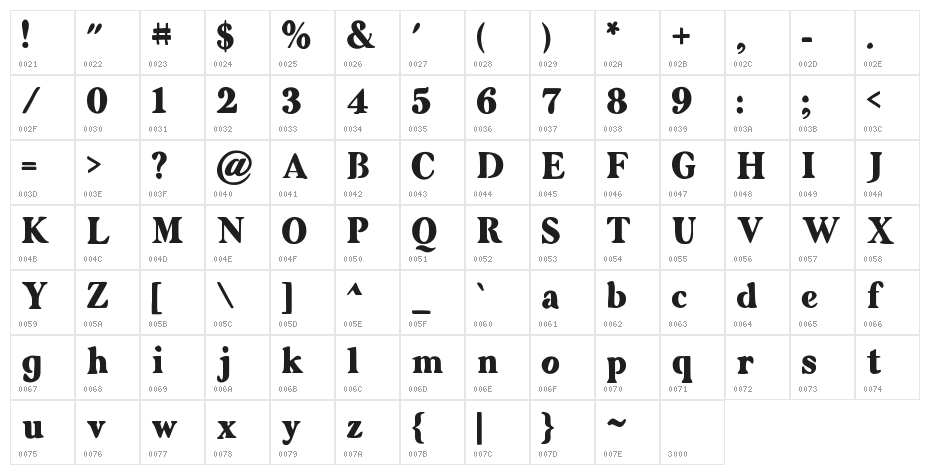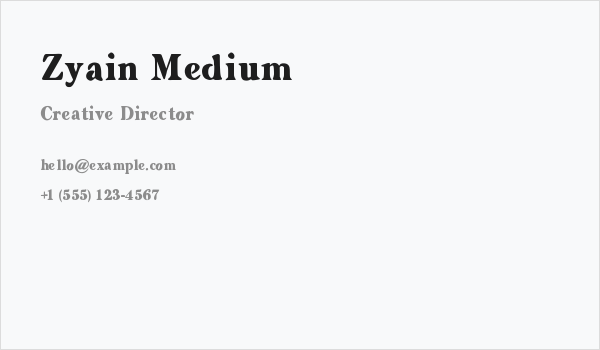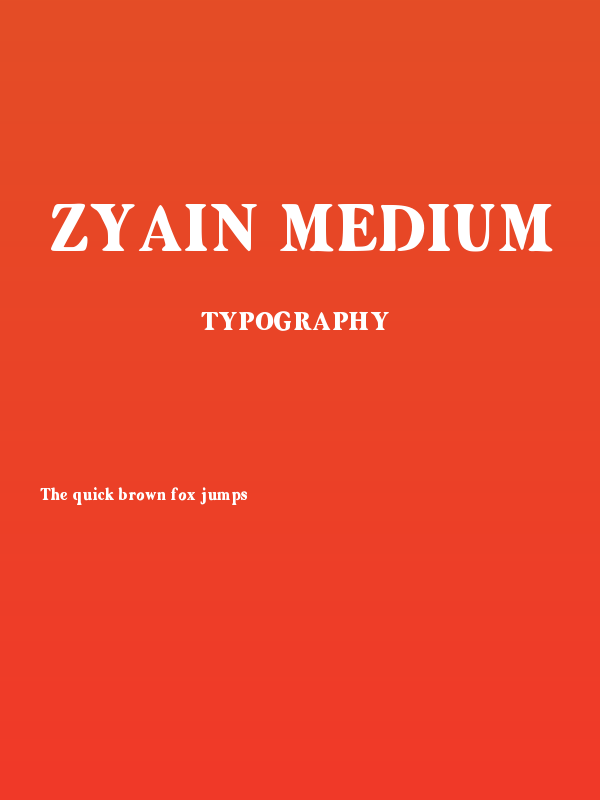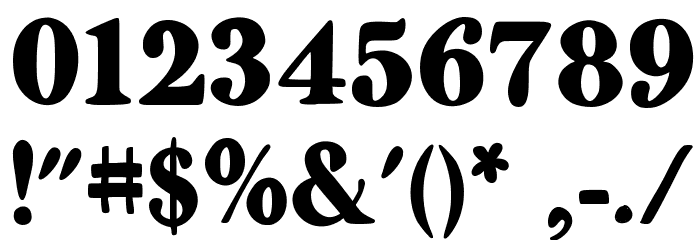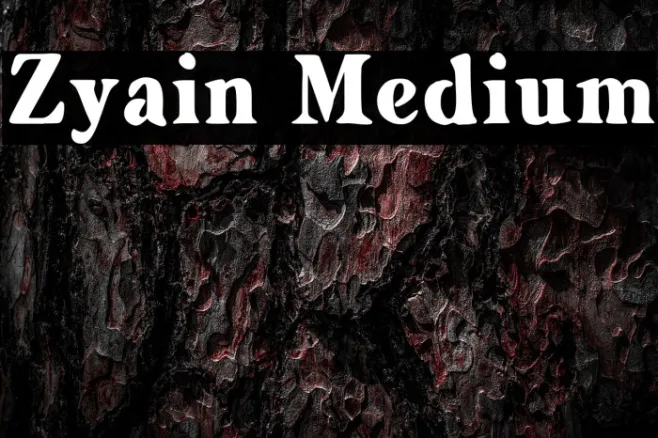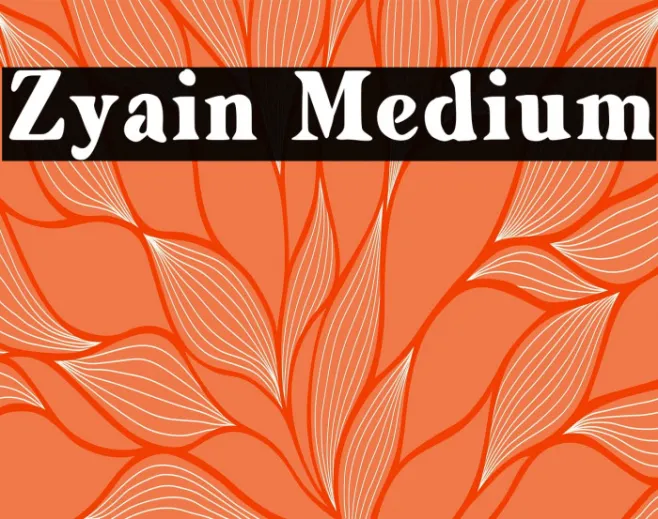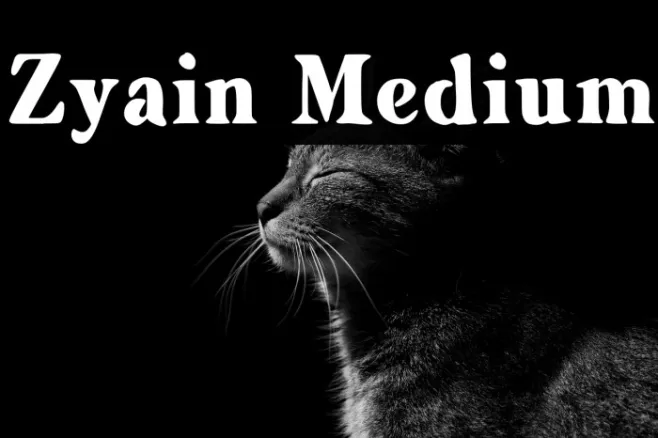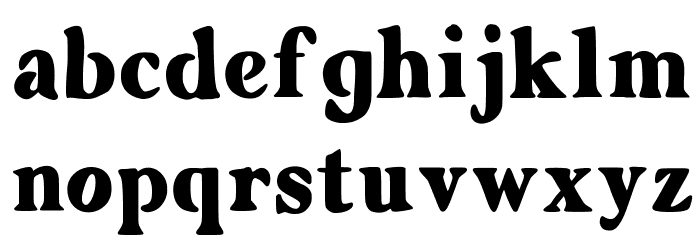
Zyain Medium Font
Zyain Medium Description
This font features a bold and expressive design with a strong presence. The characters are crafted with thick, consistent strokes, giving it a robust and impactful appearance. The serifs are pronounced, adding a touch of elegance and tradition to the overall look. The uppercase letters are tall and commanding, while the lowercase letters maintain a balanced and harmonious flow. The numerals are clear and bold, ensuring readability. Special characters are designed with the same attention to detail, making them stand out. This font is suitable for projects that require a strong and authoritative typeface.